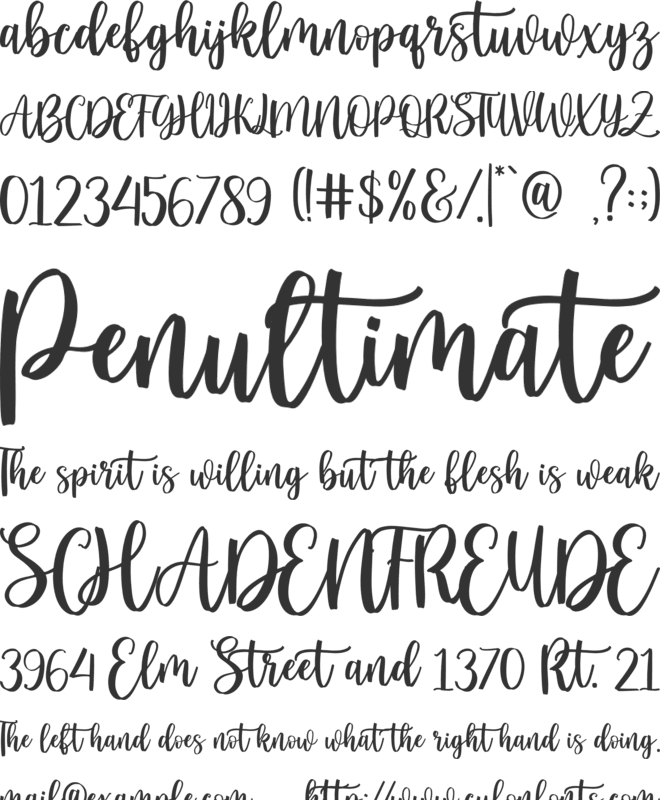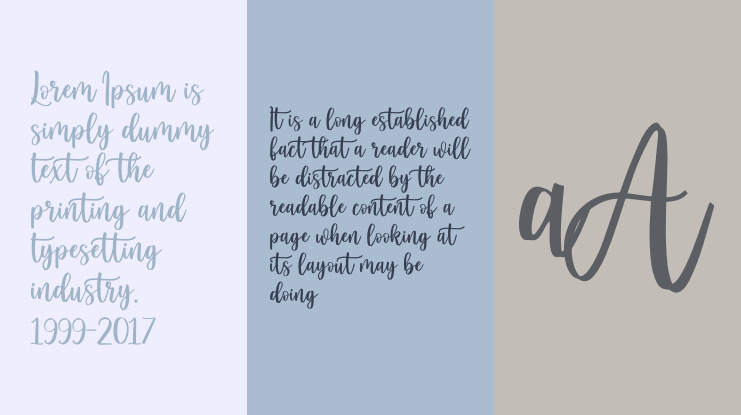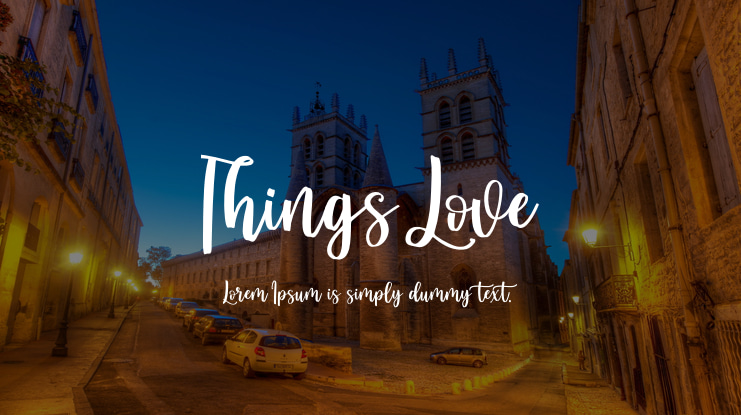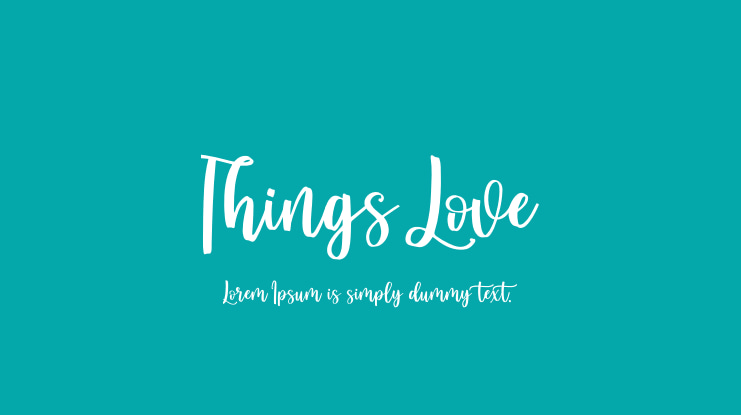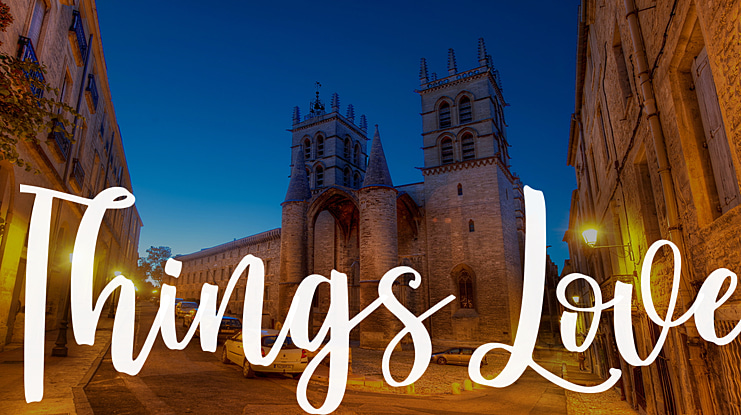
Things Love Font
I designed this font with good and balanced graphics so that the use of the font will look good when composing paragraphs of sentences.
I designed this font with great care so that I guarantee that the quality has met the standards that
I have tested using testing tools to ensure the quality of this font really meets the standards.